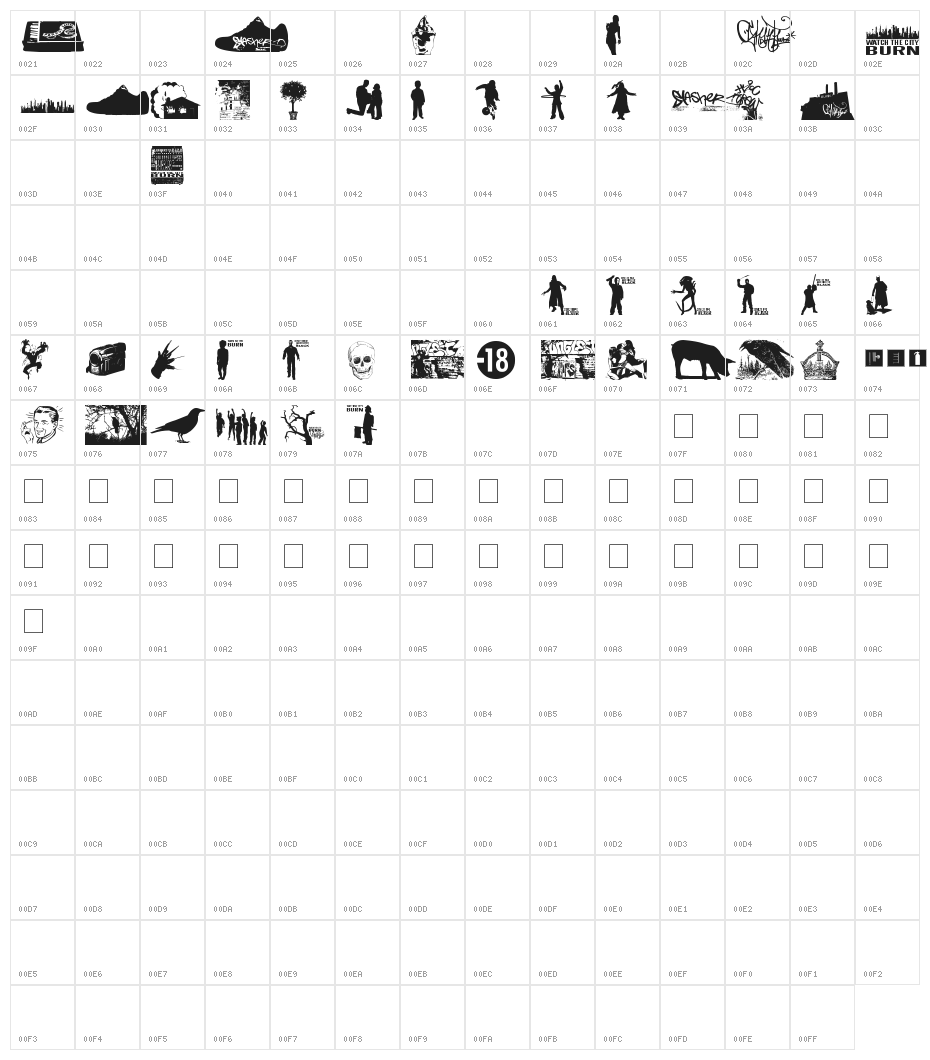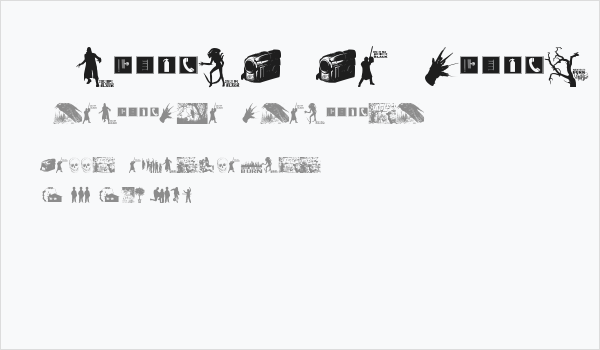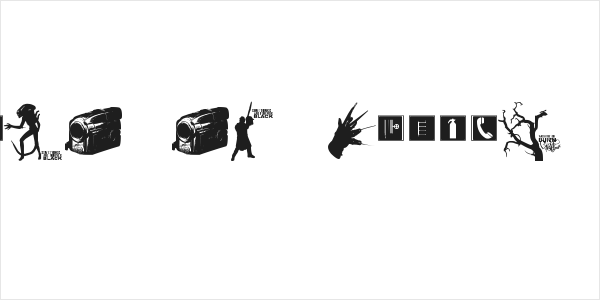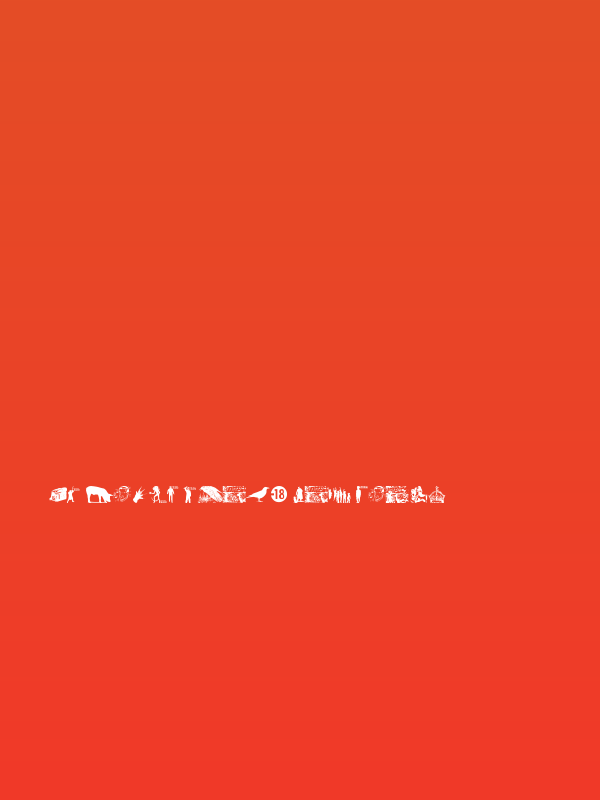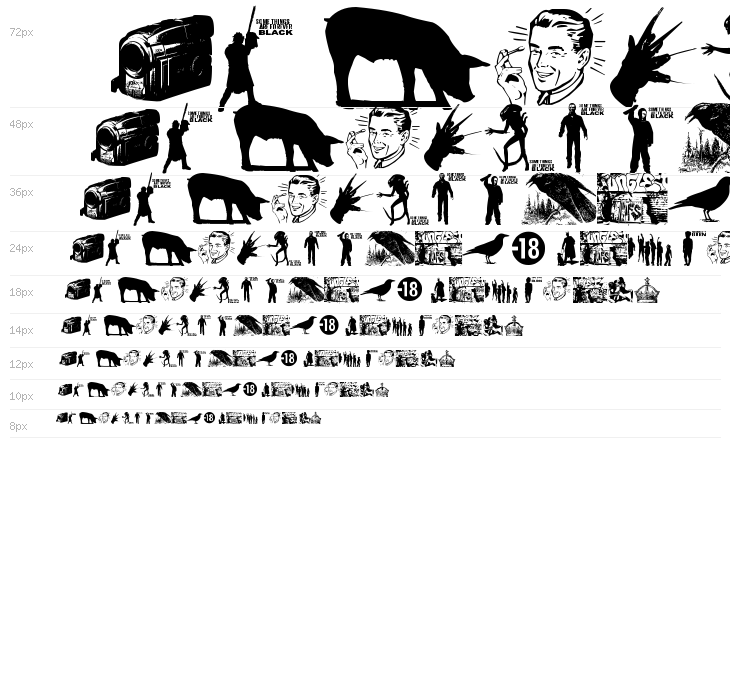
Watch The City Burn Font
Watch The City Burn Description
A highly decorative and illustrative dingbat set featuring urban, graffiti, and street culture motifs, including silhouettes of people, animals, objects, and graffiti tags. The set includes a mix of bold, high-contrast images and some text-based elements, all rendered in solid black for maximum visual impact.
| Overall Style | Decorative, Urban, Graffiti, Illustrative |
| Use Case | Logos, Posters, Decorative elements, Branding |
| Proposed Projects | Posters, album covers, streetwear branding, event flyers, urban art projects, and digital collages. |